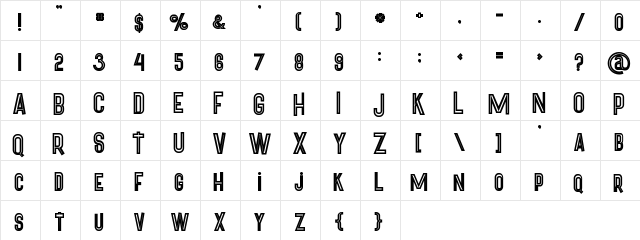
pineapple bold inline Regular
Design Context for pineapple bold inline Typeface
pineapple bold inline brings ornamental detail and strong personality to headlines and identities, where visual impact matters more than quiet functionality. Its bold stroke weight gives it real presence on the page.
Font Pairing: Pair with a clean neutral sans-serif for body copy to let pineapple bold inline's character lead without overwhelming the composition.
Pro Tip: Treat pineapple bold inline as the centrepiece of your typographic hierarchy. One strong heading set in a decorative face can carry an entire layout.